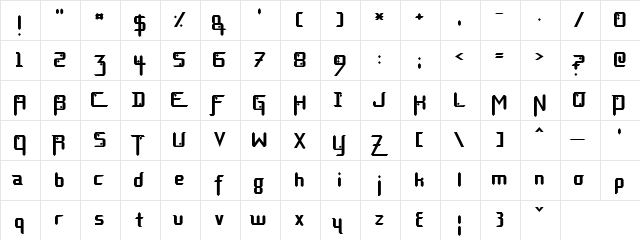
Kind Man Regular
Design Context for Kind Man Typeface
Kind Man is a composed and adaptable typeface that performs quietly and consistently across a wide range of design contexts.